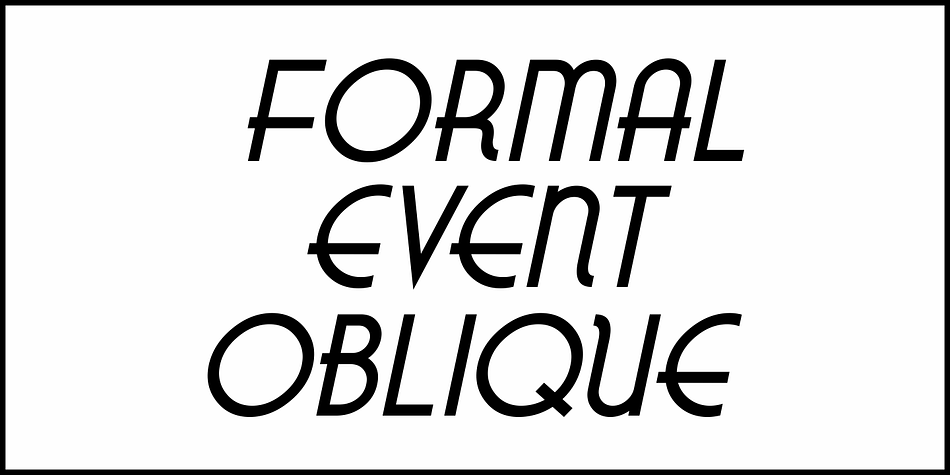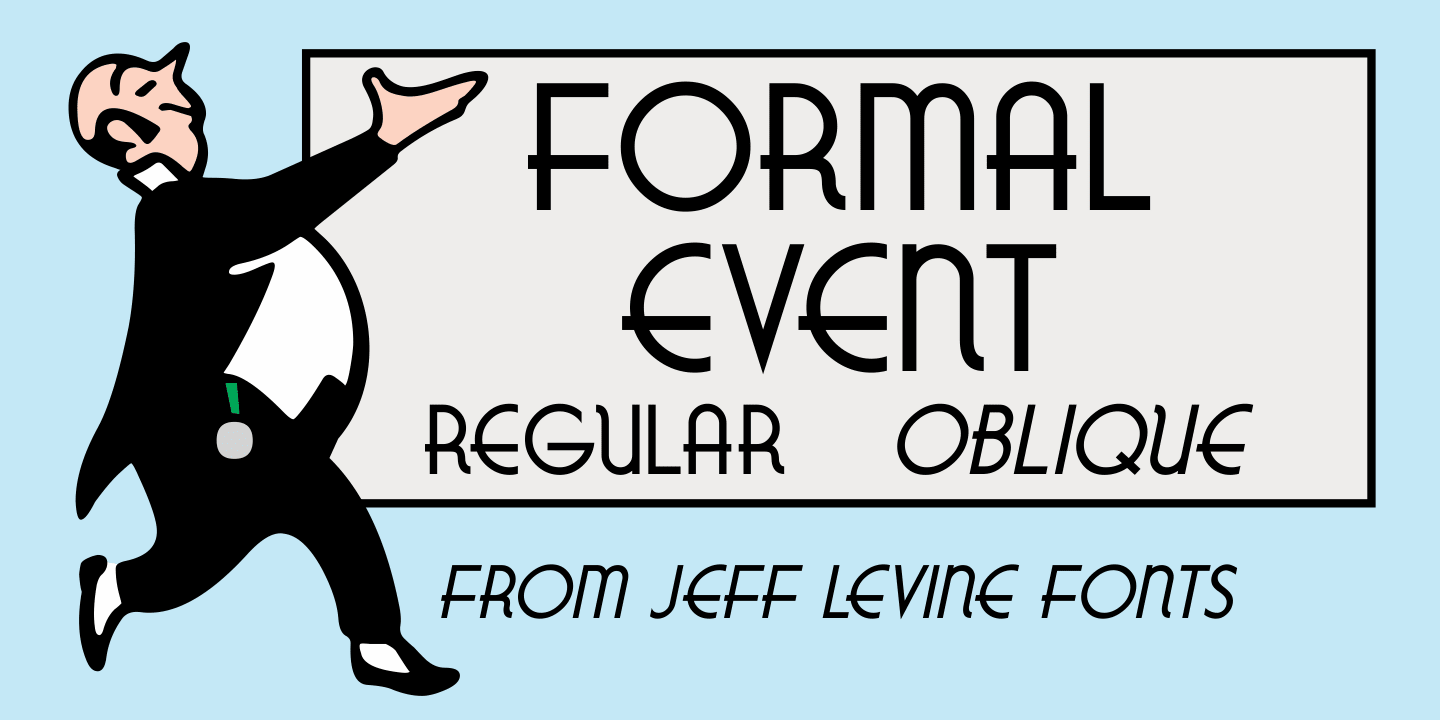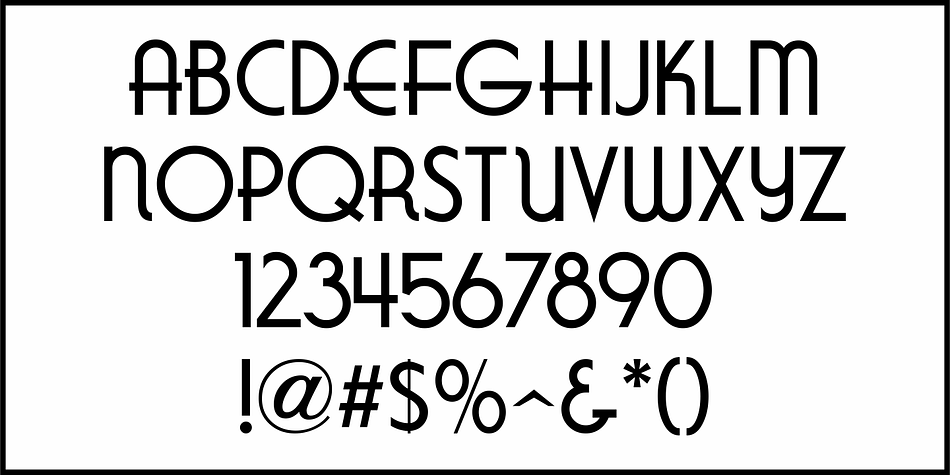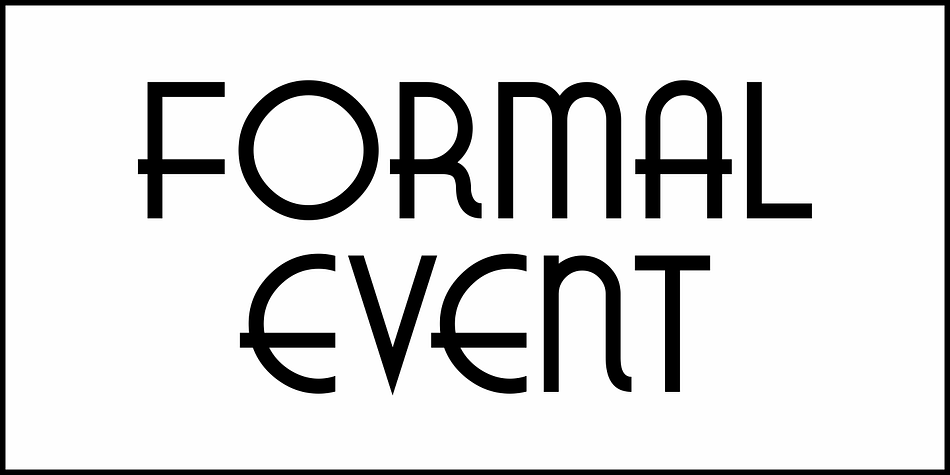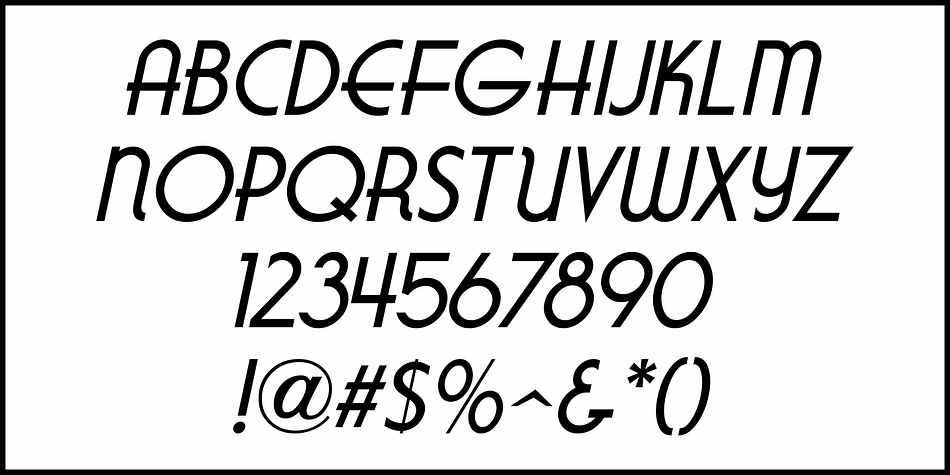
FORMAL EVENT JNL
Designed by Jeff Levine, Formal Event JNL is an art deco font family. This typeface has two styles and was published by Jeff Levine Fonts.
The hand lettered actors’ credits on a title card from the 1937 film “Shall We Dance” served as the model for Formal Event JNL – an Art Deco sans serif font available in both regular and oblique versions.